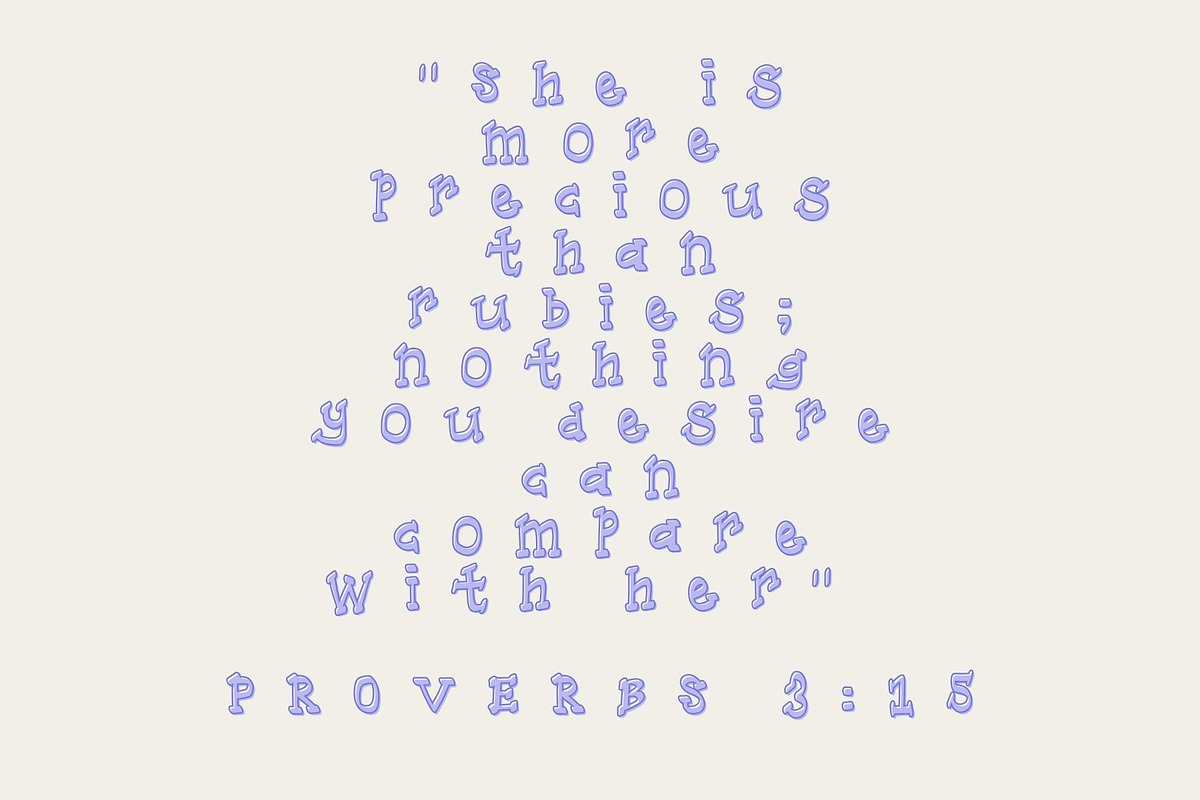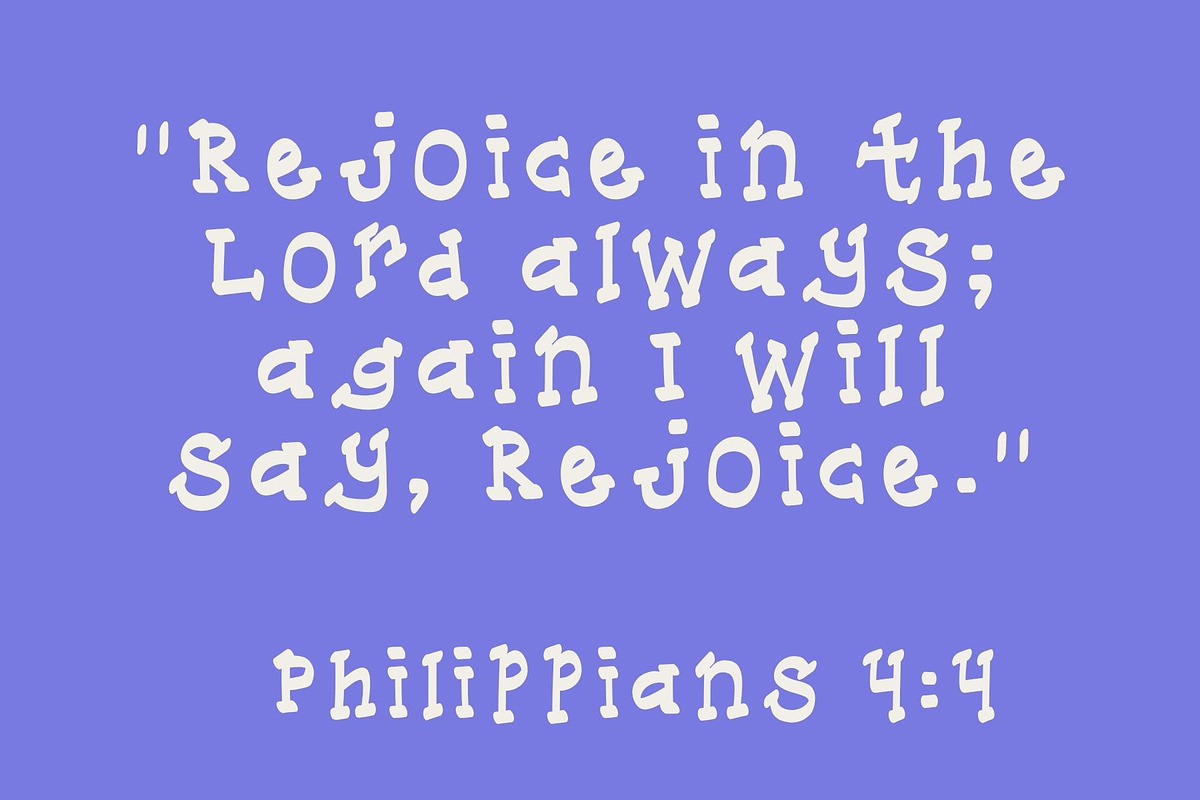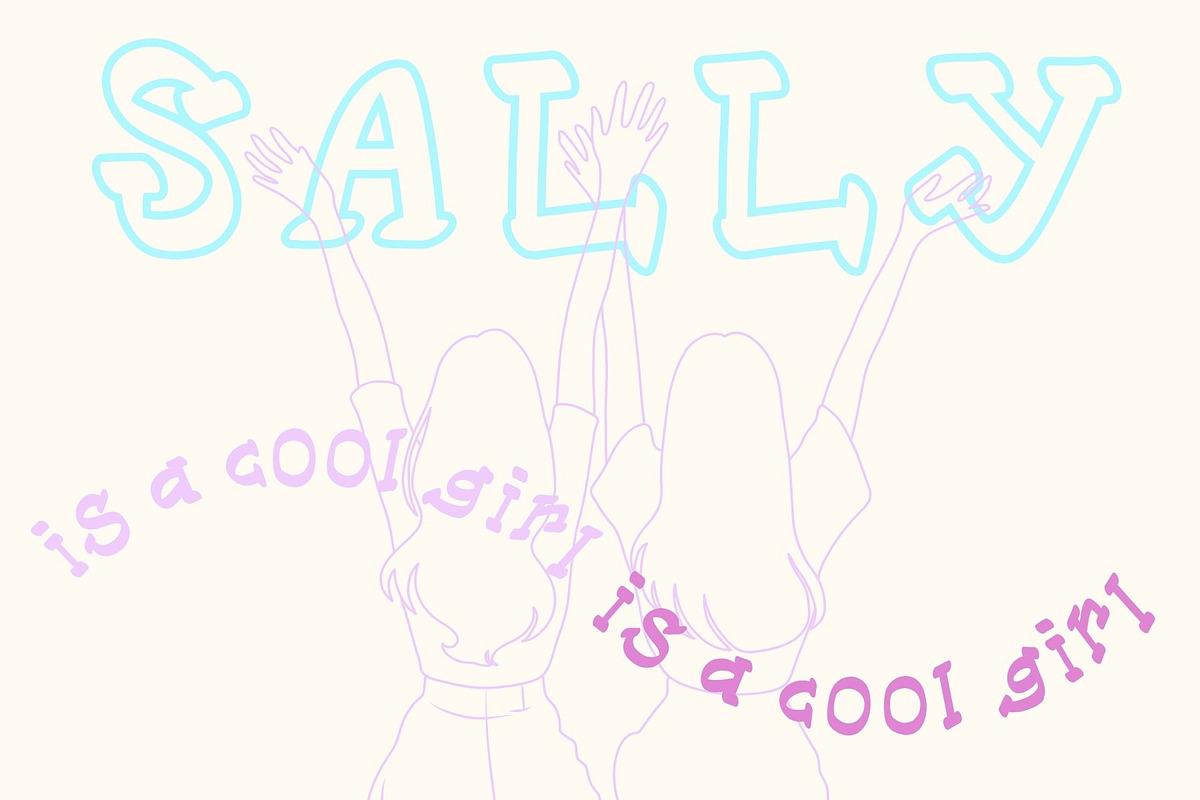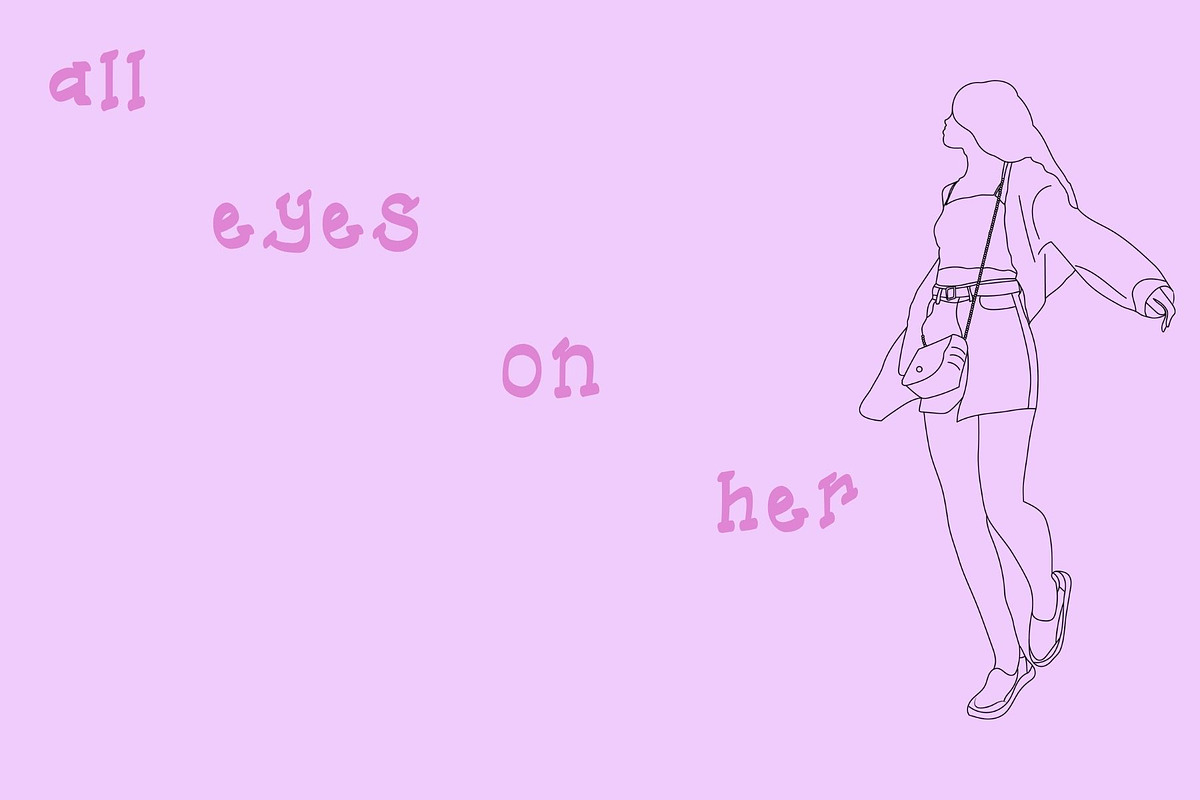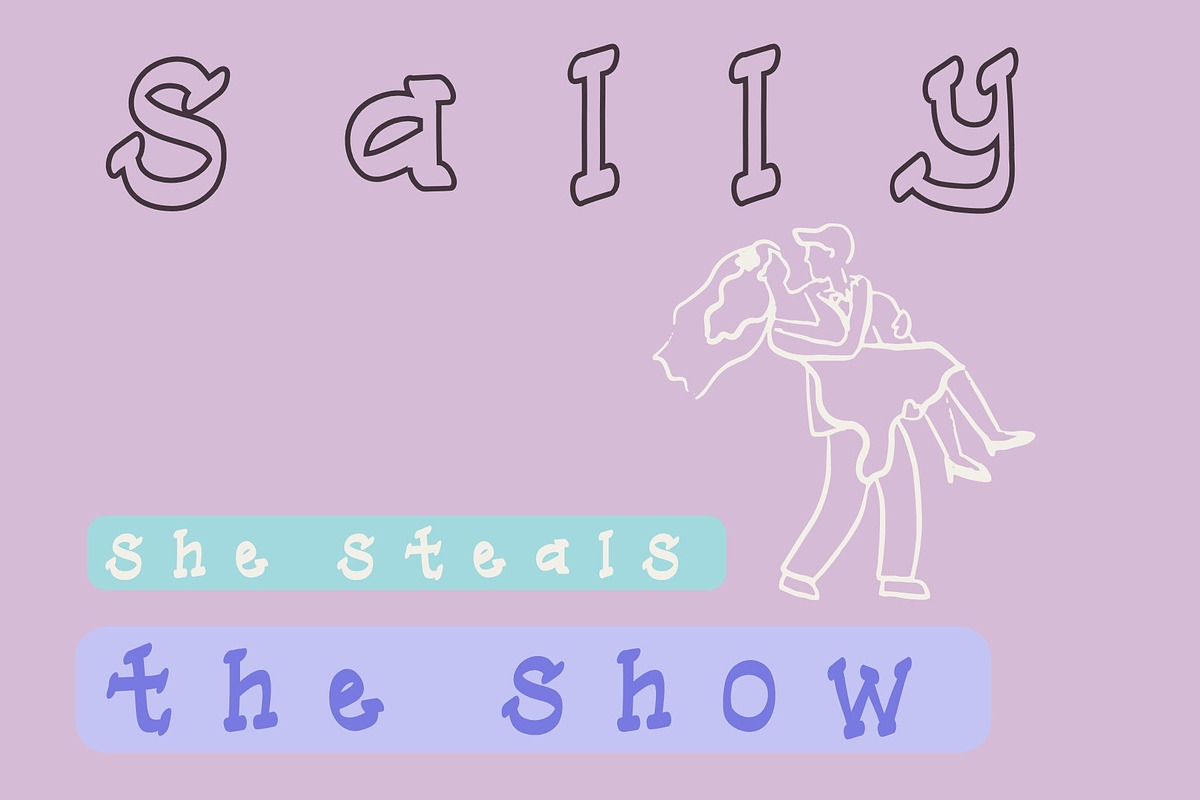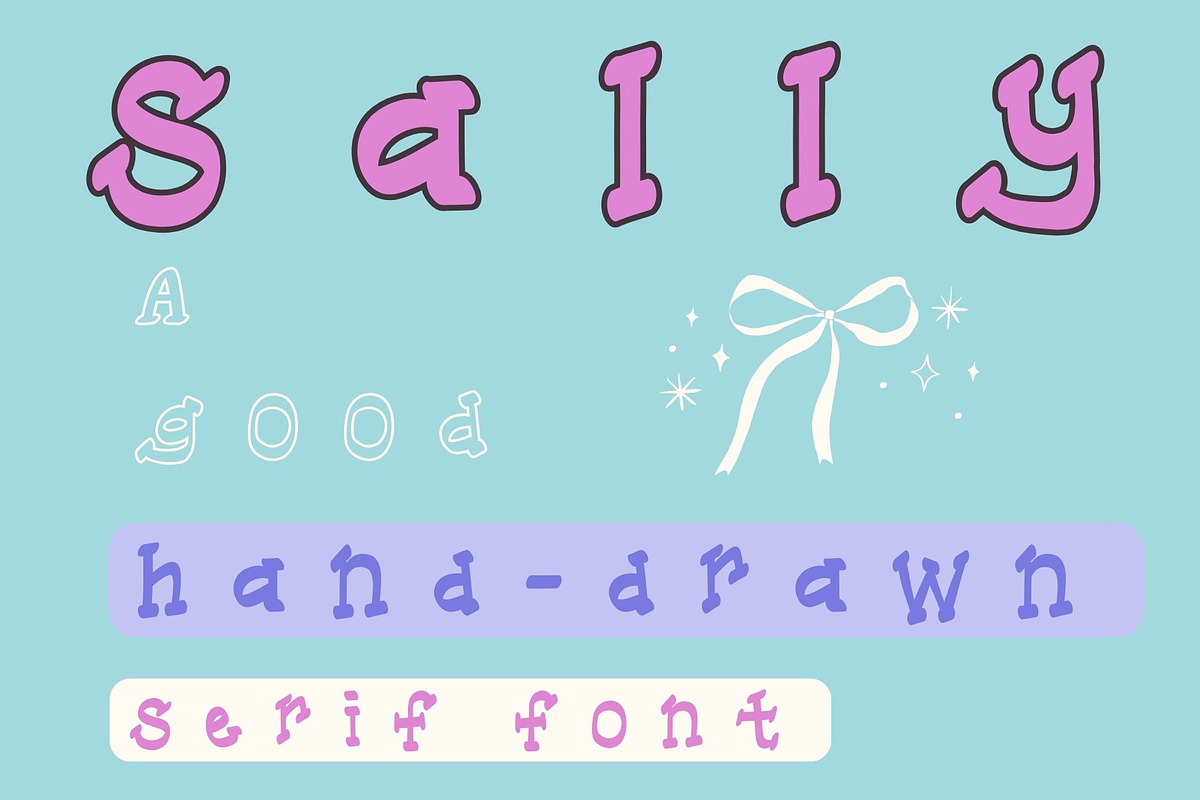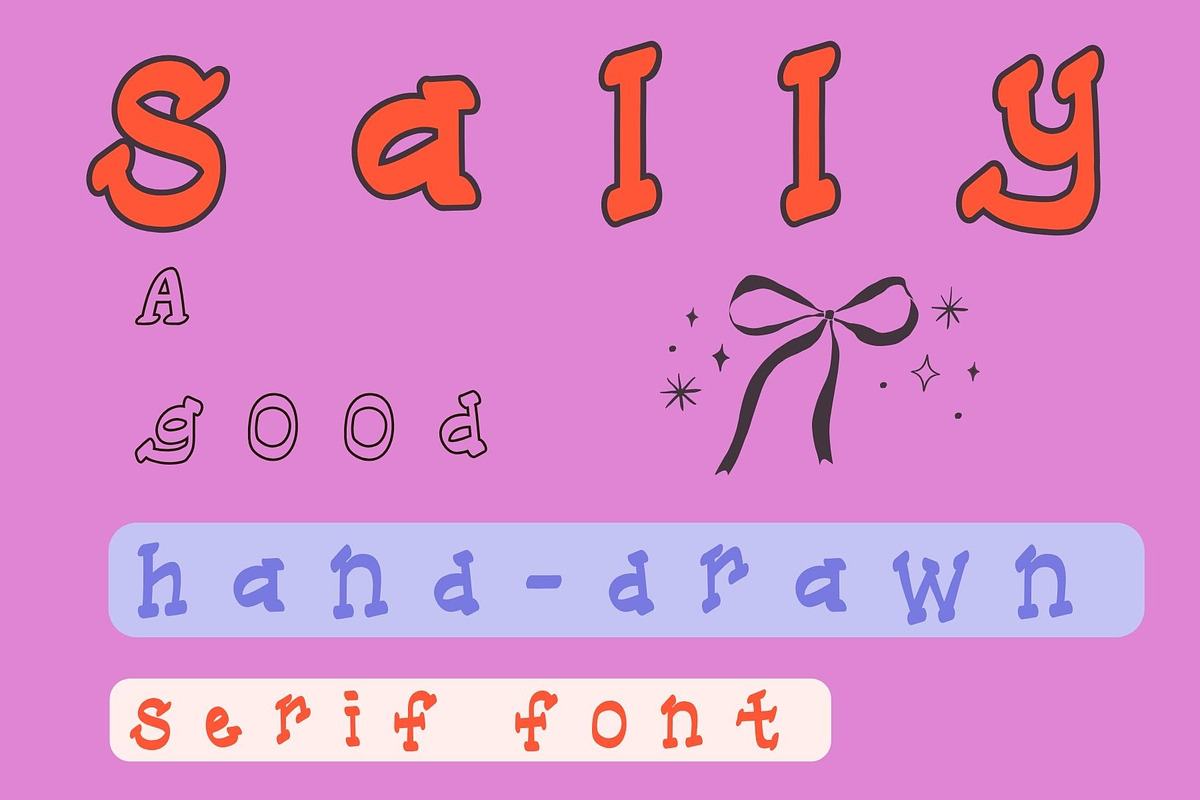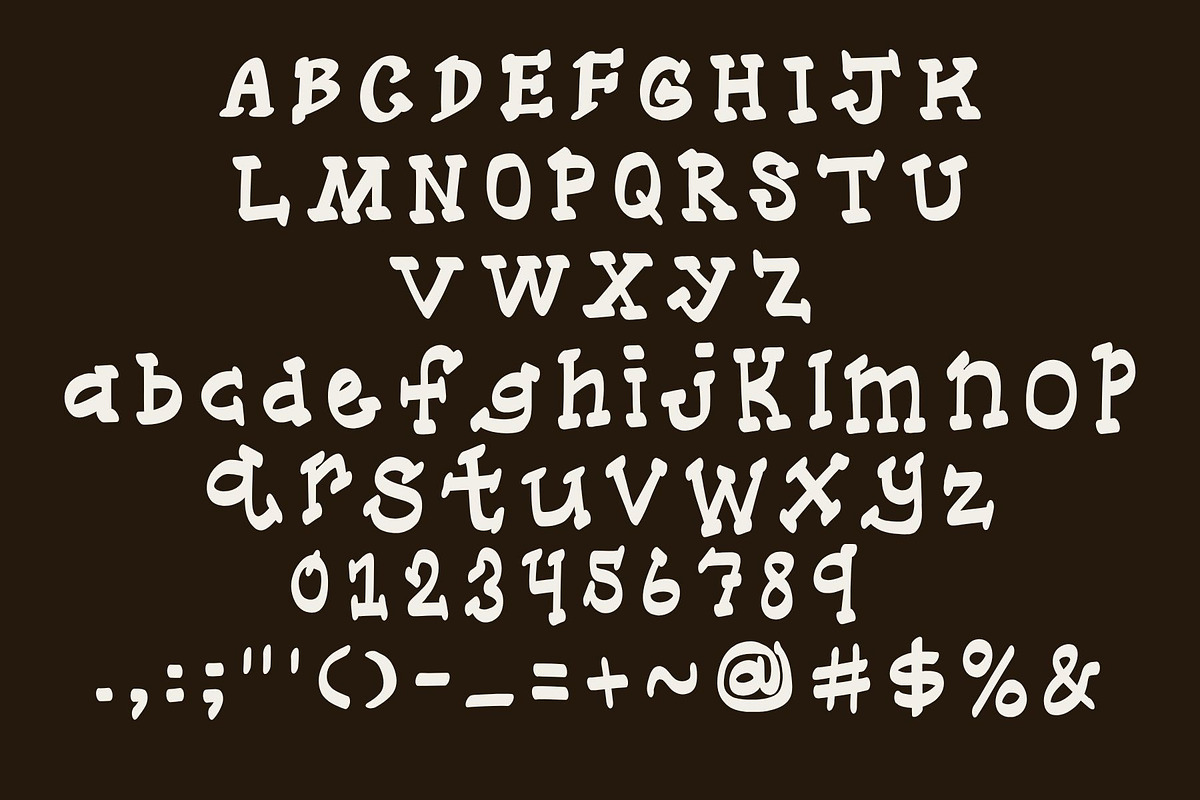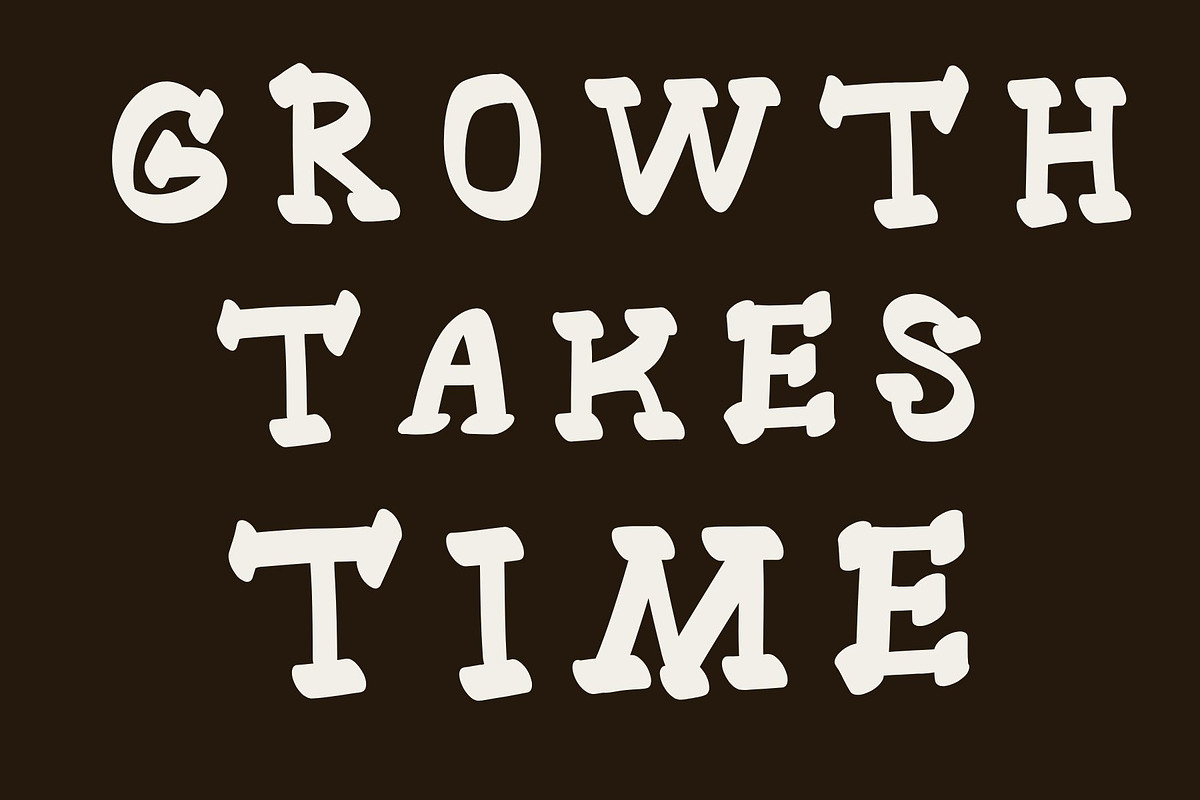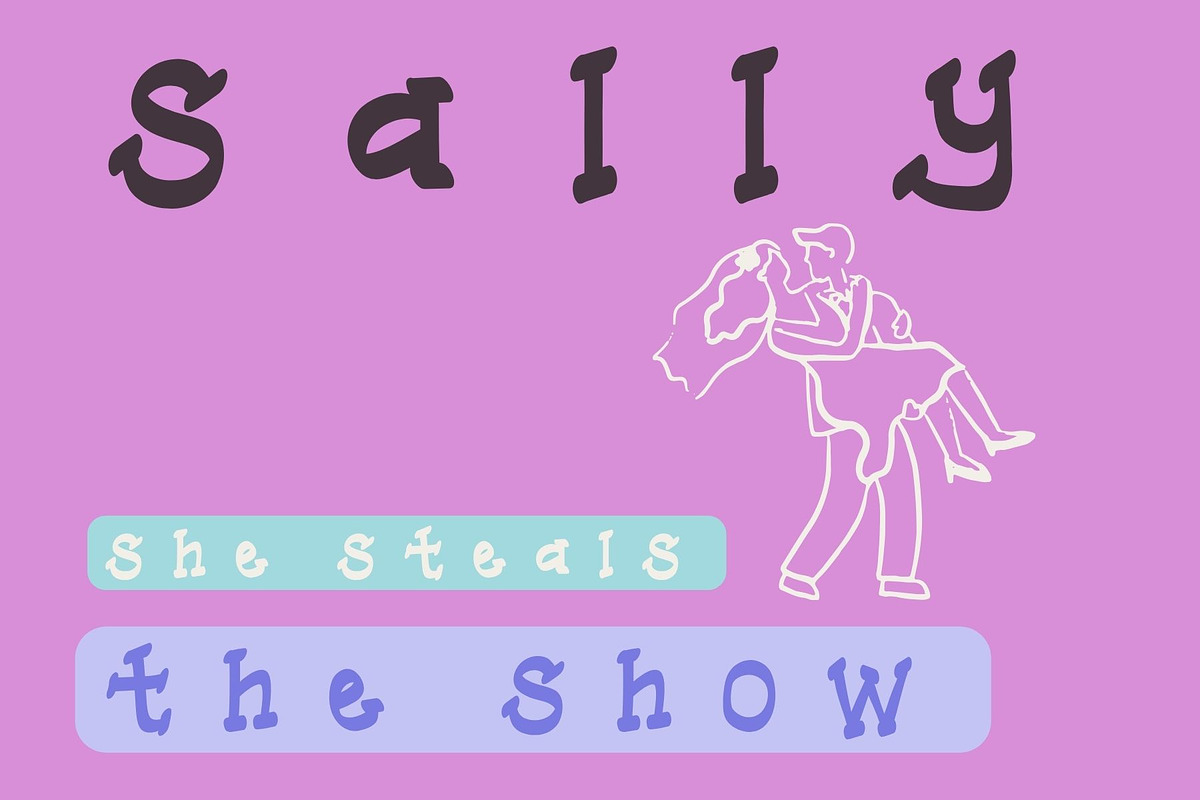
Sally, a handmade serif displayfont
SALLY, a hand-made serif font.
Sally is a thick and funky serif with hand-drawn charm. This font is fun and child-like , and sure to catch eyes. This font makes a wonderful display font , or text for stationary design, logo design, book or album cover design. Sally has bold features, and looks wonderful when different filters are applied. Have Fun !